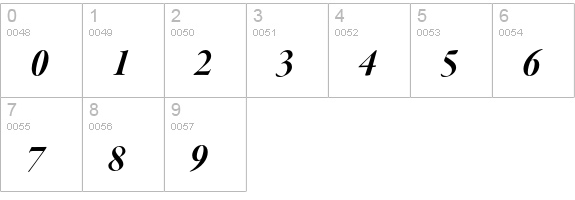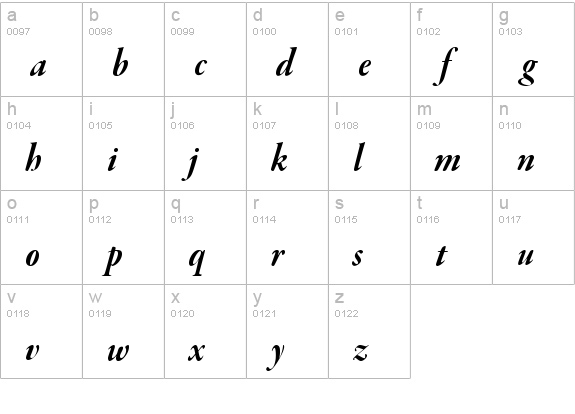
Garamond Premier Pro Bold Italic Display Font Details
Garamond Premier Pro Bold Italic Display is a strong, high-contrast, italic variant in the Garamond typeface family \xE2\x80\x94 well suited to headlines, attention-grabbing titles, and strong calls-to-action.
Garamond Premier Pro Bold Italic Display font is a stunning and elegant typeface that exudes sophistication and style. Its bold and italic design adds a touch of flair to any project, making it perfect for headings, titles, and other prominent text elements. The intricate detailing and graceful curves of this font make it a standout choice for designers looking to make a statement. What's even better is that Garamond Premier Pro Bold Italic Display font is available for free download at FontsMarket.com. This means that you can easily access this beautiful font and use it in your designs without any cost. Whether you're working on a professional project or a personal creation, this font is sure to elevate your work and leave a lasting impression. Download Garamond Premier Pro Bold Italic Display font today and let its timeless appeal enhance your designs.